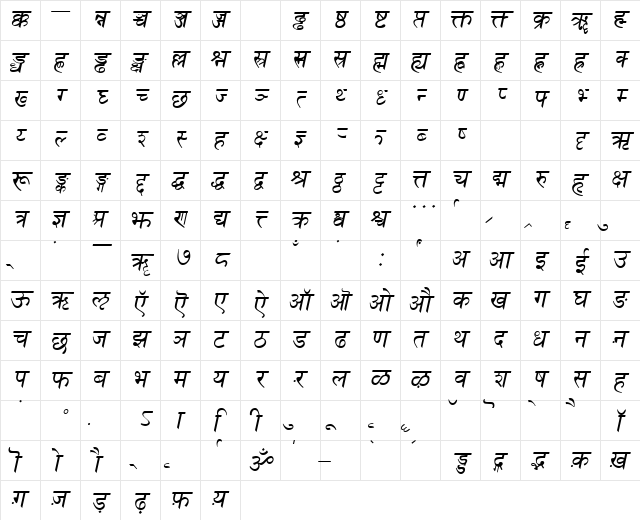
SanskritDelhiSSK Italic Font Preview
SanskritDelhiSSK Italic
SanskritDelhiSSK Italic Font Details
Design Context for SanskritDelhiSSK Typeface
SanskritDelhiSSK offers clean, dependable letterforms without strong stylistic allegiance, making it a practical choice for designers who need flexibility. The slanted form adds forward momentum and visual energy.
Pro Tip: Use SanskritDelhiSSK for emphasis, pull quotes, and subheadings where its slanted energy can add rhythm to the layout.